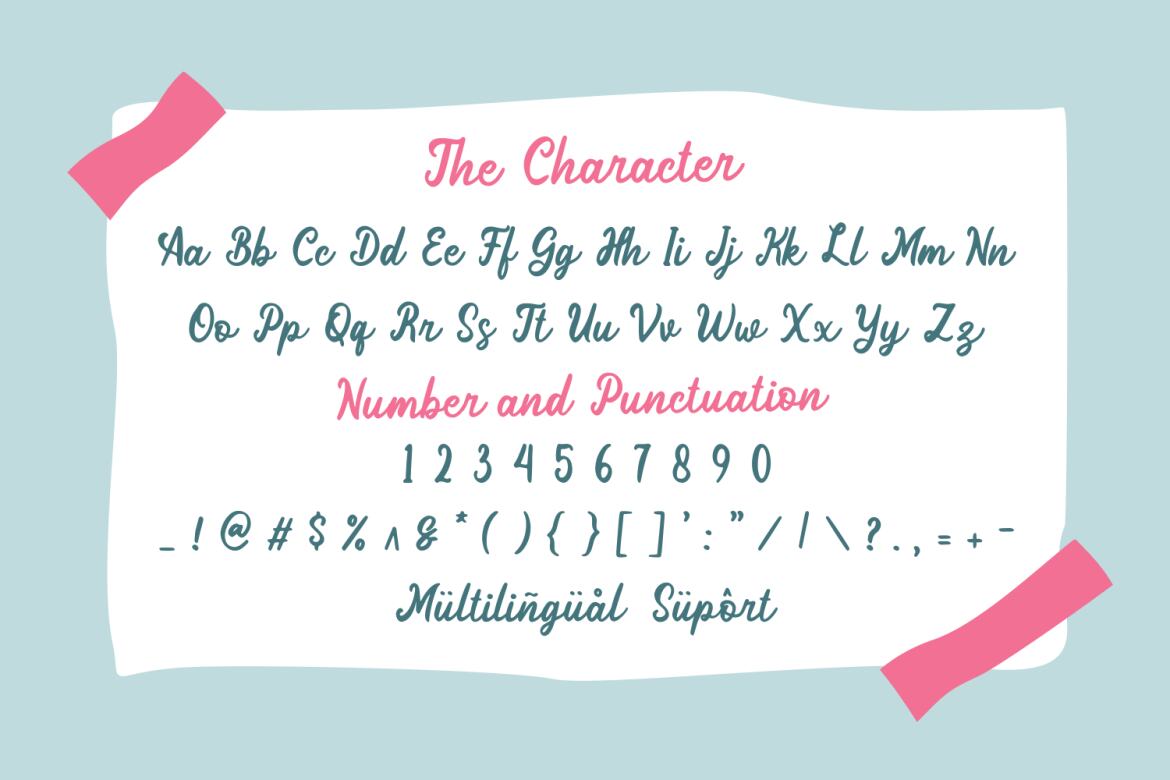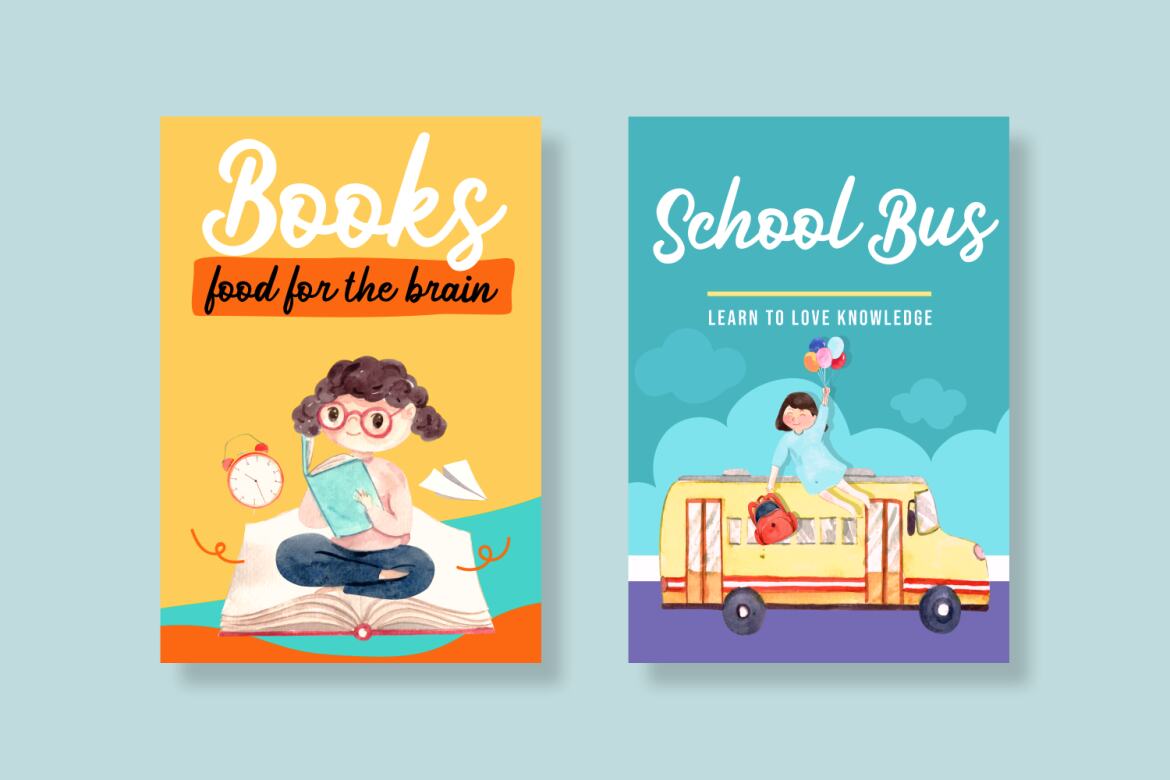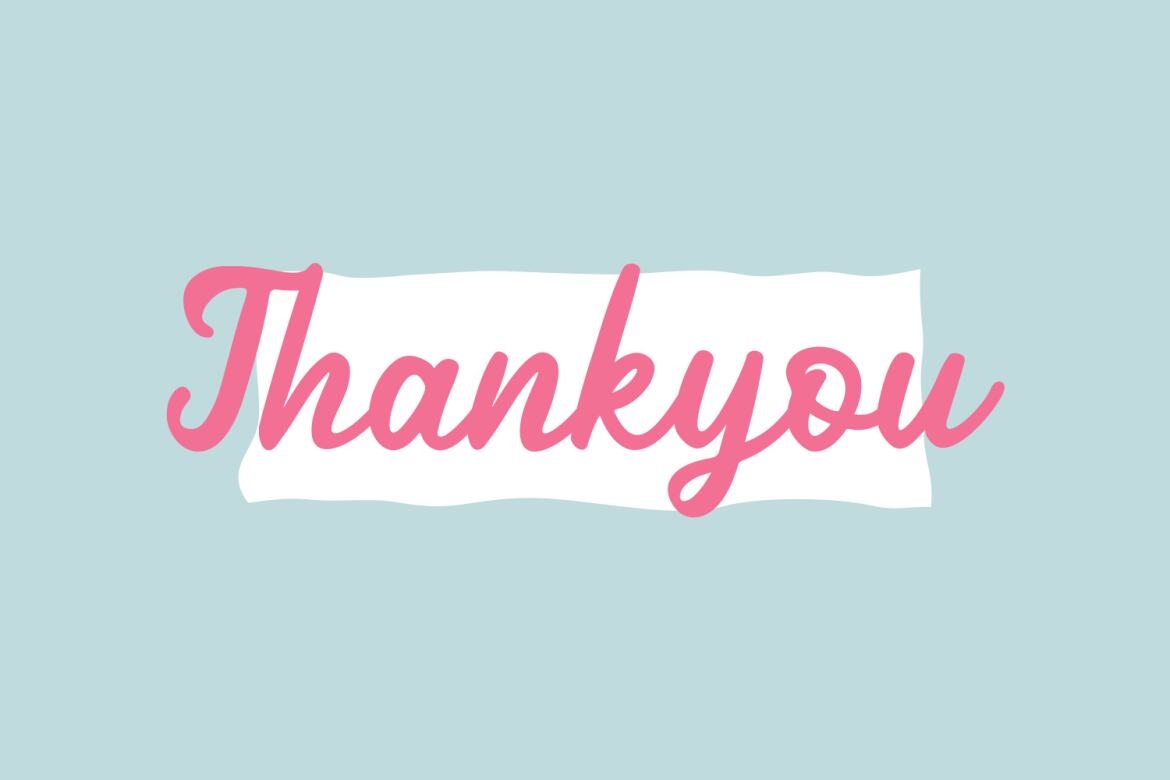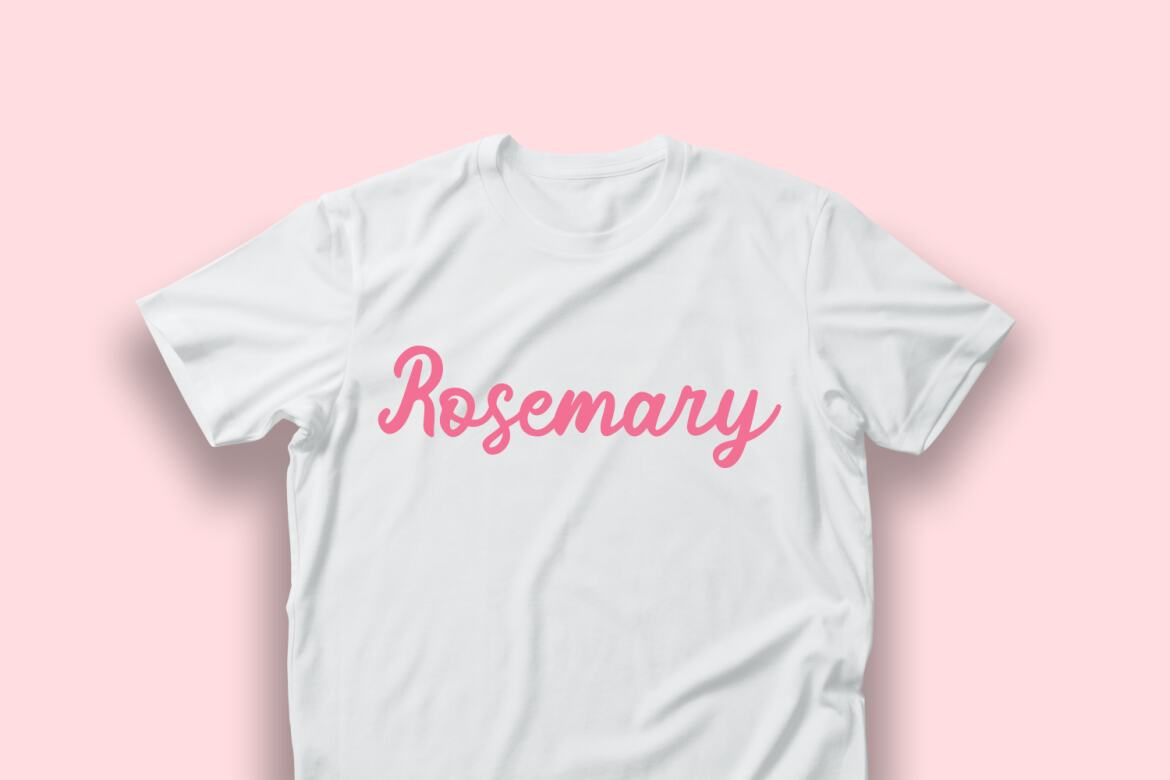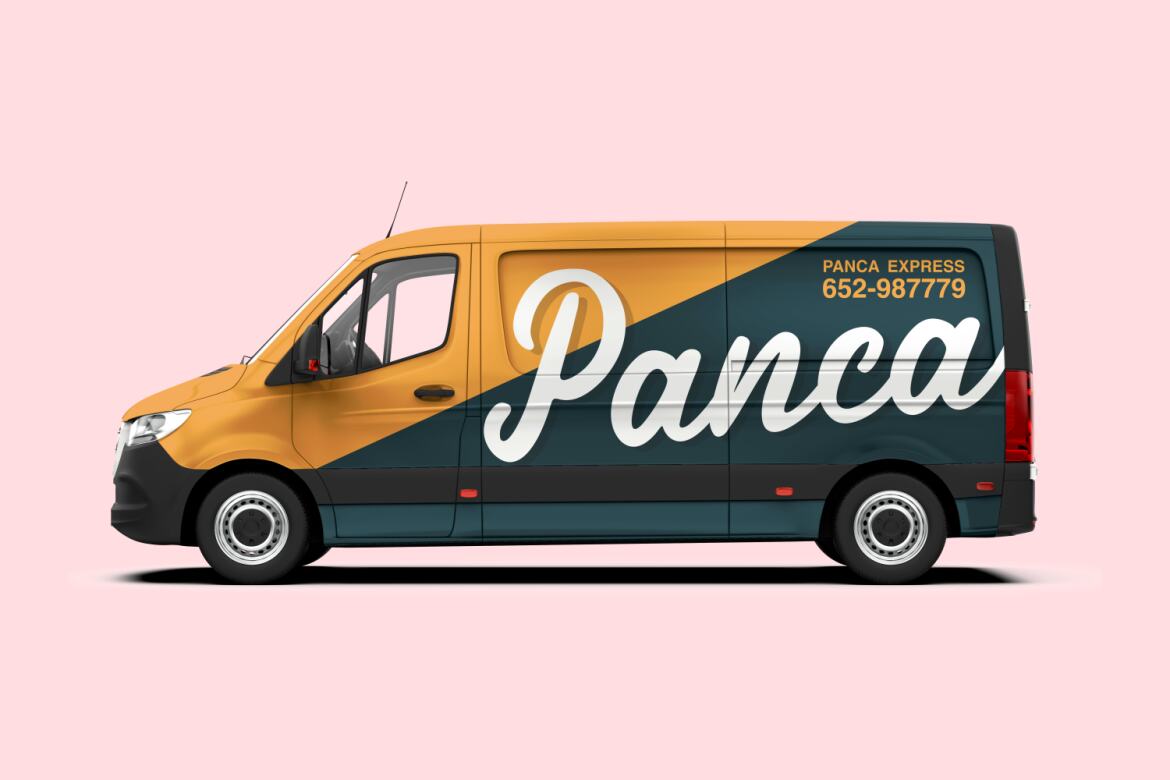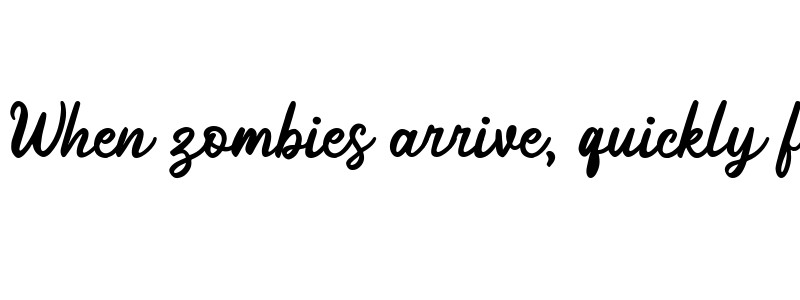
Barsime FREE Script Font
Introducing Barsime by Forberas Club. Barsime is a Brushes Handwritten Script Font. Barsime is perfect for product packaging, branding project, megazine, social media, wedding, or just used to express words above the background. This font includes TTF and OTF, also multilingual support. Enjoy the font, feel free to comment or feedback, send me PM or email.